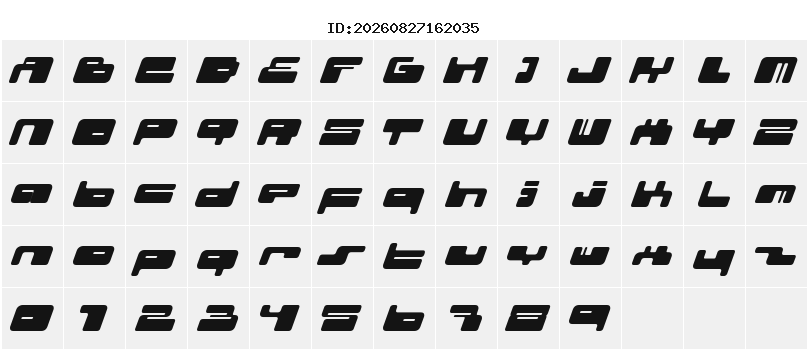
02.10ital Preview
• Font Name: 02.10ital
• Font Style: fenotype
• Full Font Name: 02.10ital fenotype
About 02.10ital.ttf
02.10ital.ttf is a modern, elegant sans-serif font designed for ultimate readability and visual harmony. Perfect for branding, headlines, web design, and print materials.